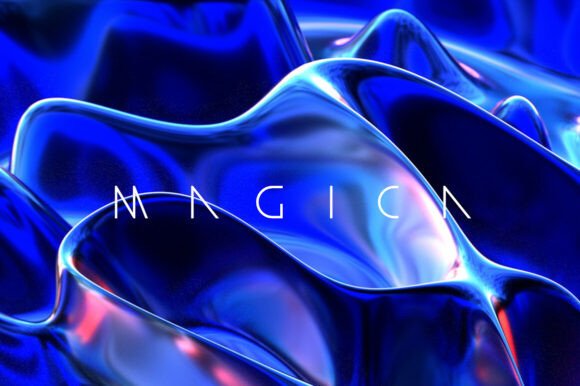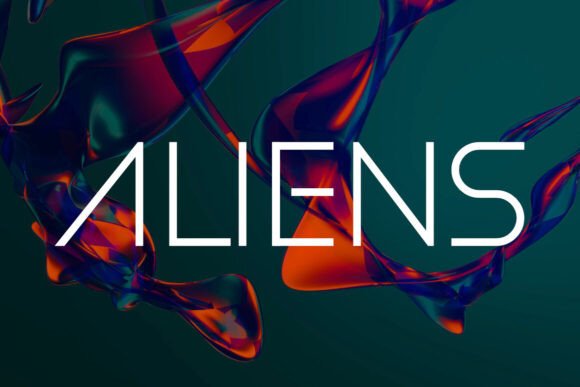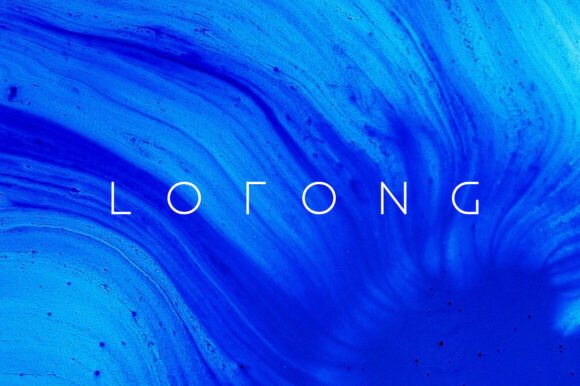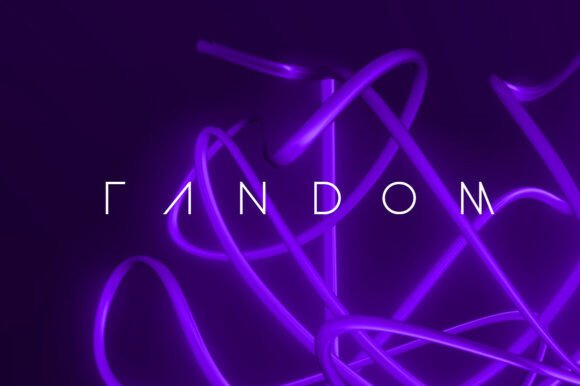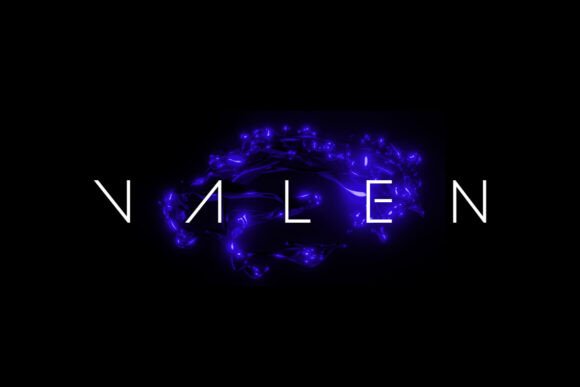
Introduction to Rintvera Font Font
Fonts play a crucial role in design, and the Rintvera Font font is a typeface that brings both character and versatility to any project. Whether you’re working on a branding project, a website, or a print design, the Rintvera Font font offers a unique style that can elevate your work.
Elevate your projects, from coding to presentations, with a font that speaks the language of progress.
Unleash the power of pixels and transform your text into a visual journey where technology meets typography.
Key Features of Rintvera Font Font
Why Choose Rintvera Font Font?
The Rintvera Font font is more than just a typeface – it’s a design tool that helps you communicate your message with style and clarity. Its unique character set and versatile design make it suitable for a wide range of applications, from elegant invitations to bold headlines.
With its carefully crafted letterforms and balanced proportions, the Rintvera Font font ensures readability and visual appeal across all mediums.
What makes Rintvera Font font special?
The Rintvera Font font stands out with its unique design, exceptional readability, and versatility across various design applications.